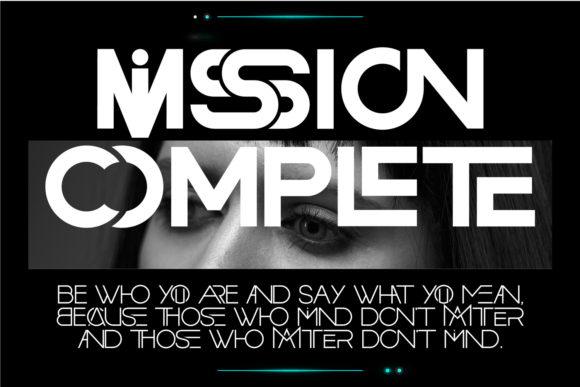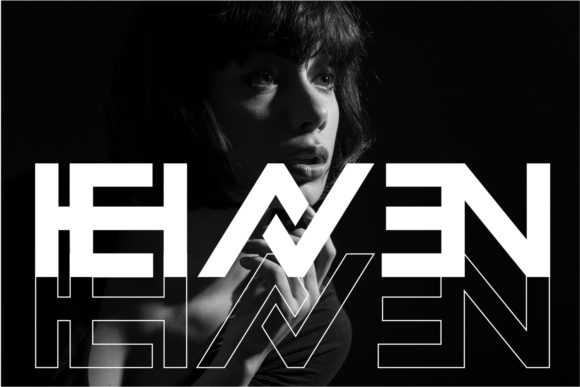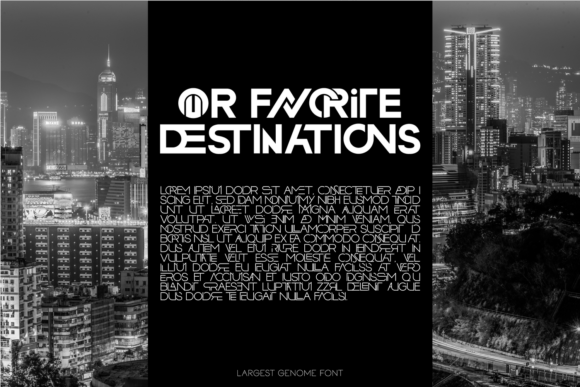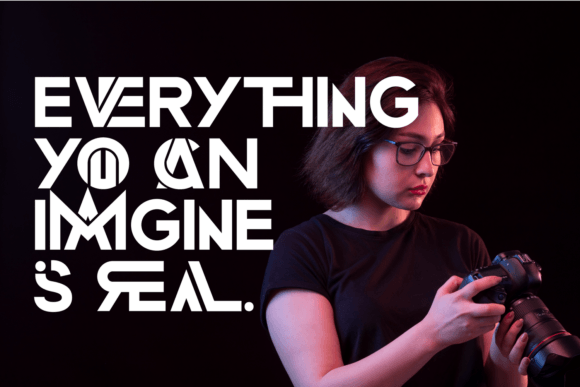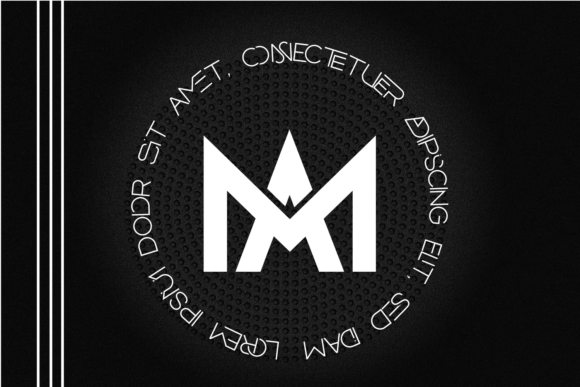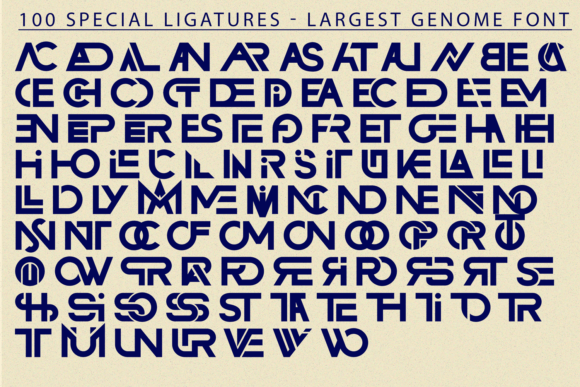
Introduction to Largest Genome Font
Enter the Largest Genome Font, a modern geometric ligature font that’s been making waves in the design community. This sophisticated editorial font boasts a clean and classic visual aesthetic, paired with swoon-worthy ligatures that instantly enhance your designs. Whether you’re working on a logo design, branding, packaging, or social media posts, the Largest Genome Font is the perfect design resource to elevate your work.
Largest Genome Font
- Ultra-high quality font with intricate details, perfect for adding a unique touch to designs.
- Unique characteristic: The Largest Genome Font features an exclusive, hand-drawn design that sets it apart from other fonts.
Honest Review: Largest Genome Font
As a designer, I’m always on the lookout for high-quality design resources to elevate my creative projects. I recently stumbled upon the Largest Genome Font, and I’m excited to share my honest review.
- ✨ High-quality design: The Largest Genome Font boasts a unique and intricate design that’s sure to grab attention.
- ⚠️ Limited font styles: While the font itself is stunning, the available styles are somewhat limited, which might not be ideal for complex design projects.
- ⚠️ Not ideal for small text: Due to its intricate design, the font might not be the best choice for small text sizes, as it can become difficult to read.
Overall, I’m impressed with the Largest Genome Font’s potential to elevate my creative projects. While it has some limitations, its unique design and free download make it a valuable addition to any designer’s toolkit.
Largest Genome Font